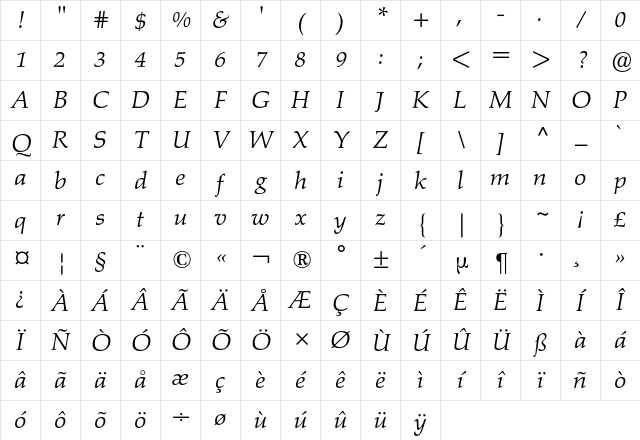
Palatino Werk BQ Regular
Complete Palatino Werk BQ Regular glyph index. Displaying only characters natively supported by Palatino Werk BQ Regular font.
Design Context for Palatino Werk BQ
Palatino Werk BQ is a composed and adaptable typeface that performs quietly and consistently across a wide range of design contexts.